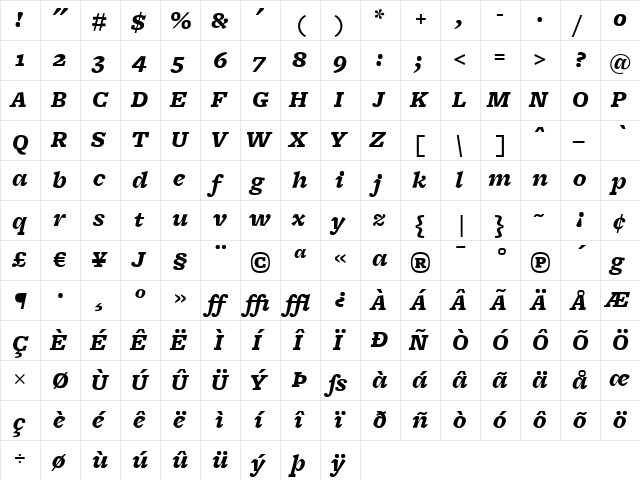
FreightMicro BlackItalic Font Preview
FreightMicro BlackItalic
FreightMicro BlackItalic Font Details
| Style | BlackItalic |
| Foundry | Joshua Darden & Phil's Fonts, Inc |
| Designer | Joshua Darden |
Design Context for FreightMicro Typeface
FreightMicro is a composed and adaptable typeface that performs quietly and consistently across a wide range of design contexts. The dynamic lean of this cut emphasises speed and emphasis in any layout.
Pro Tip: Use FreightMicro for emphasis, pull quotes, and subheadings where its slanted energy can add rhythm to the layout.